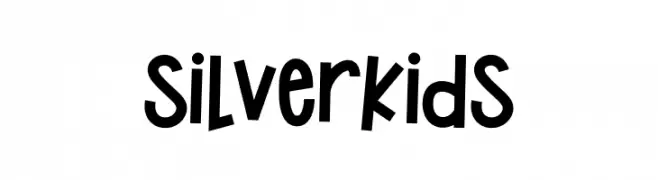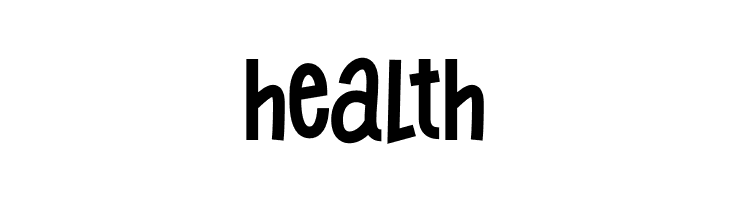
A playful, bold font with irregular, whimsical characters.
A playful and bold font with irregular, exaggerated letterforms and a whimsical style.
A playful, bold, hand-drawn font with a whimsical and informal style.
A playful, bold font with rounded edges and a whimsical style.